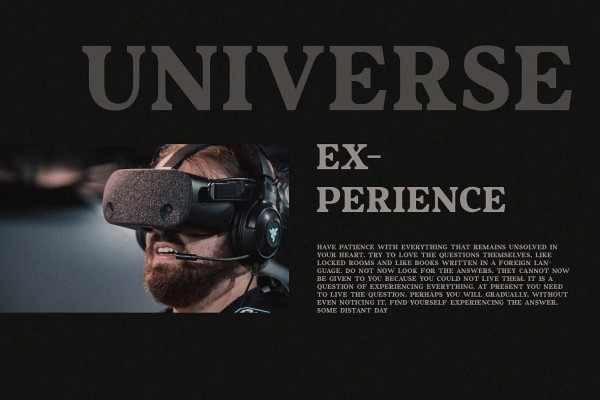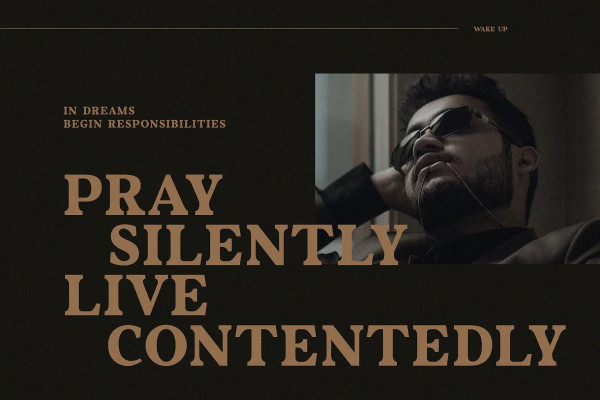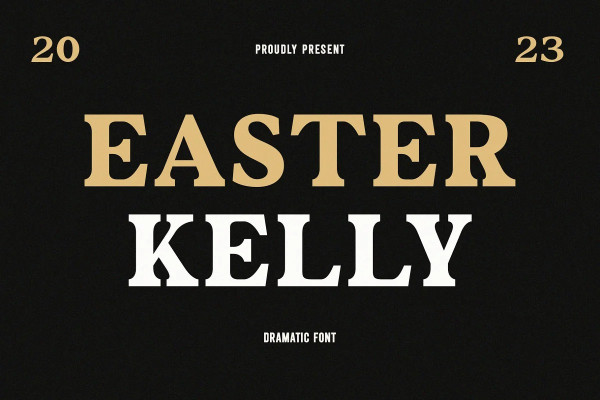
Easter Kelly Font
Easter Kelly Font – A beautiful series of letters is encapsulated in this ‘Easter Kelly’ font. Neat lettering is perfect for writing needs that are modern and pleasing to the eye. There is a Modern impression but still looks Elegant when used for writing.